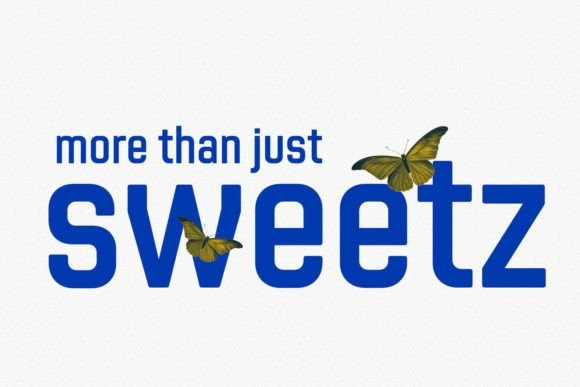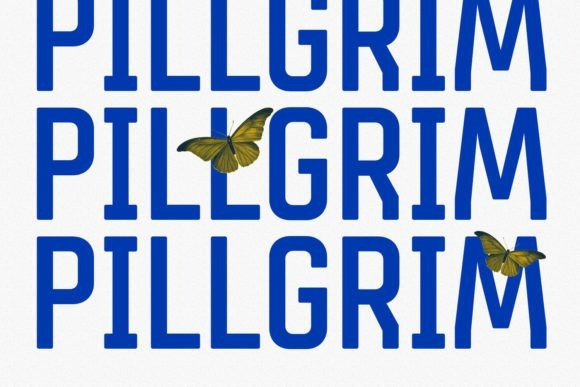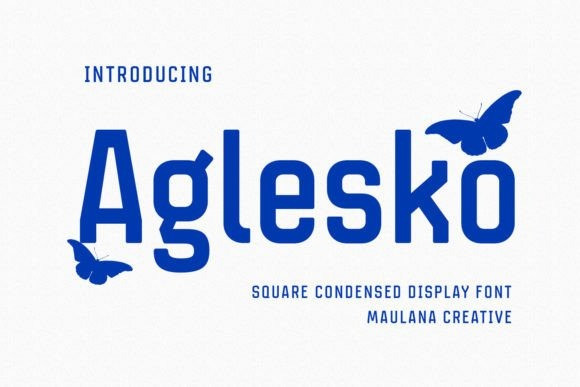
Aglesko Font
Aglesko Font is a modern condensed sans display font. Bold stroke, fun character with a bit of ligatures and alternates. To give you an extra creative work. Aglesko font support multilingual more than 100+ language. This font is good for logo design, Social media, Movie Titles, Books Titles, a short text even a long text letter and good for your secondary text font with script or serif. Make a stunning work with Agleskofont.